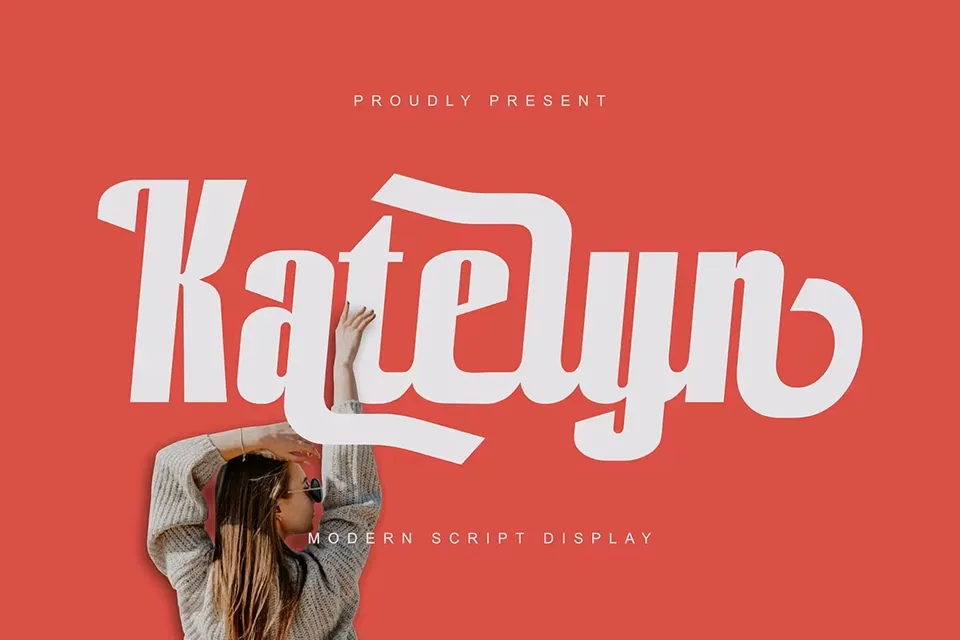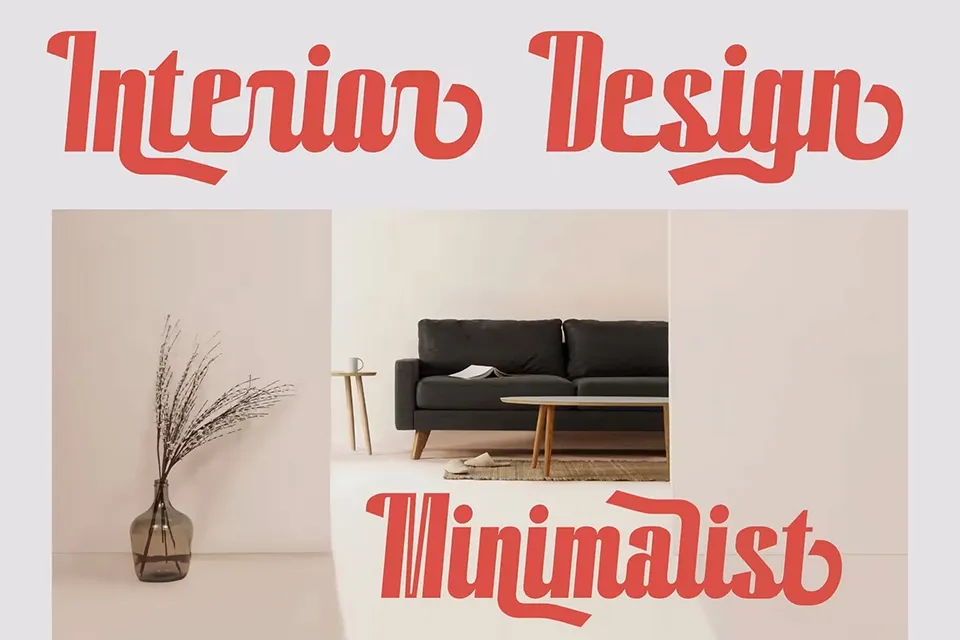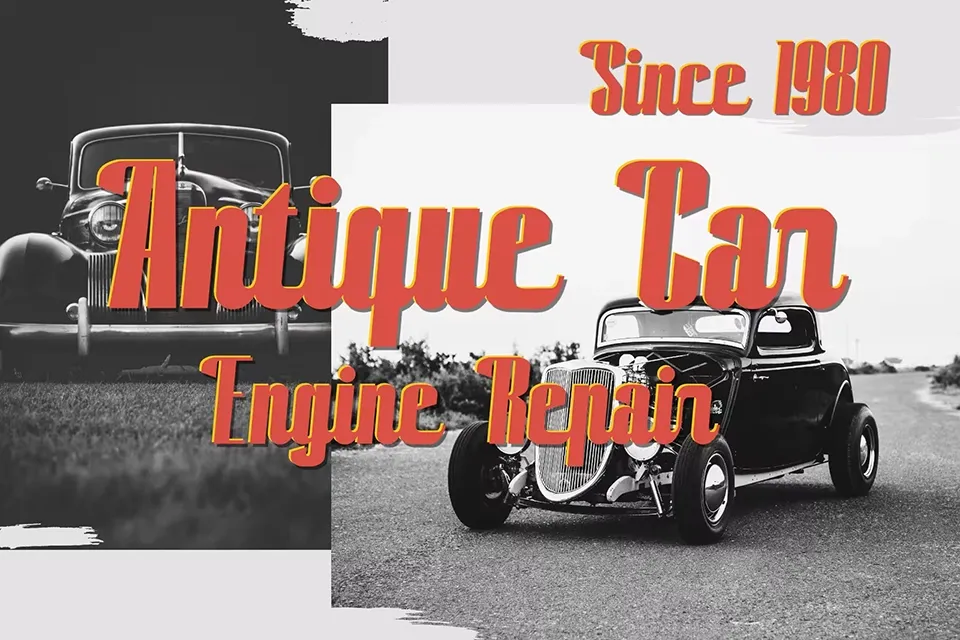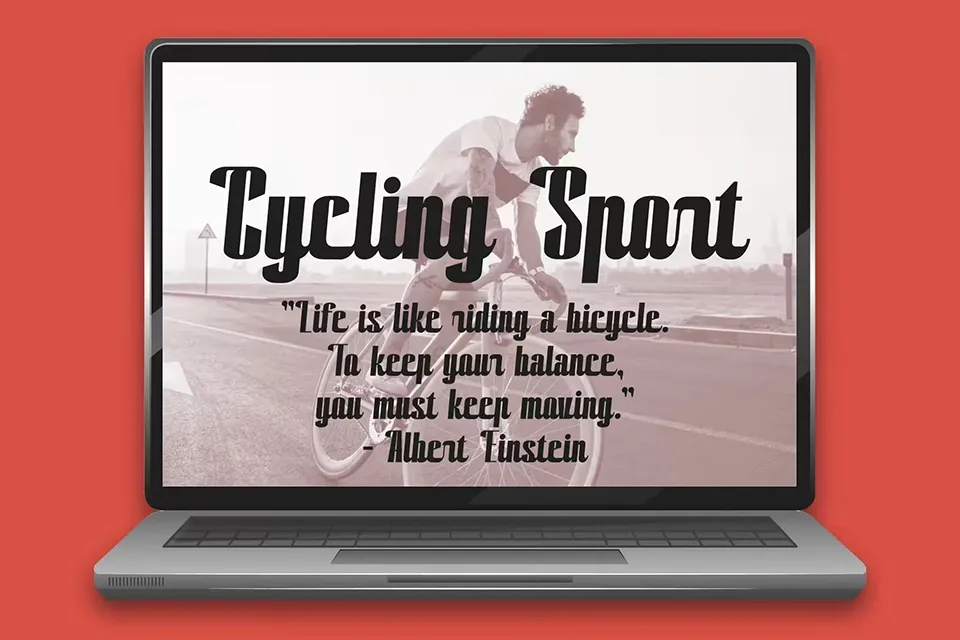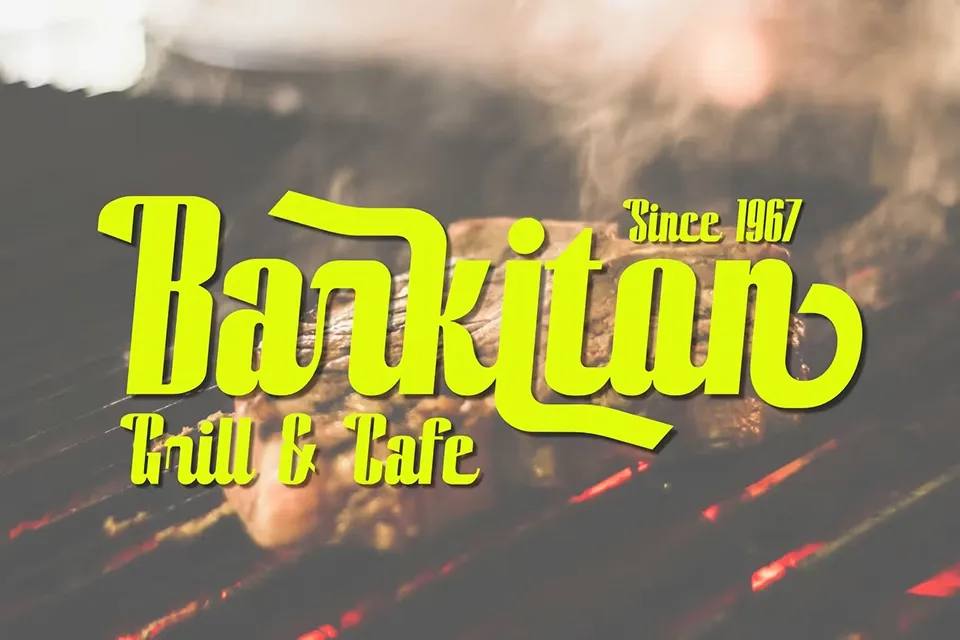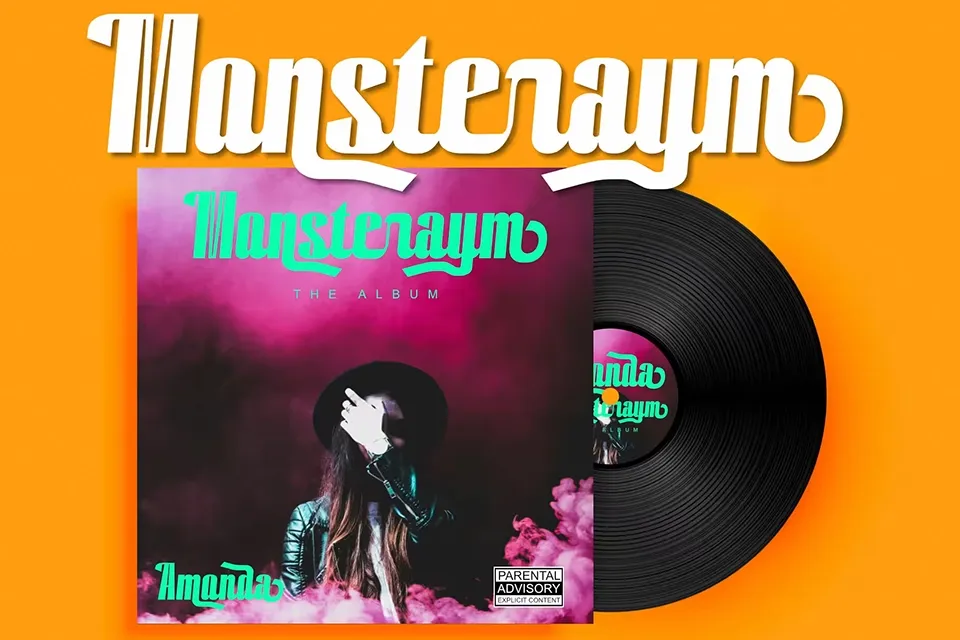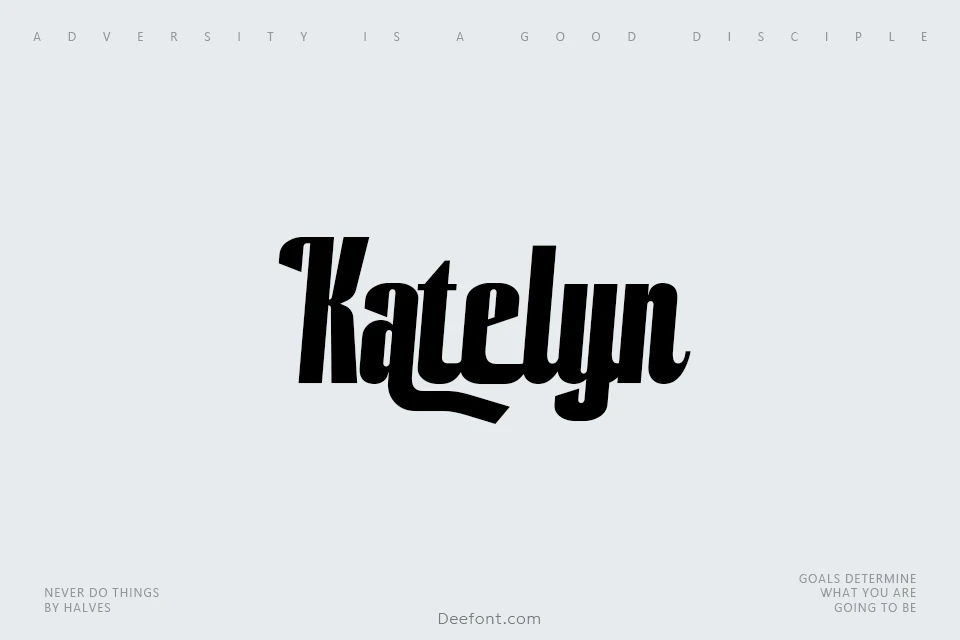
Katelyn Display Font
Katelyn Font is a bold and impactful modern script display font. This typeface stands out with its thick, flowing letterforms that blend script elegance with a strong, contemporary presence. The design features smooth curves and dramatic strokes, making it perfect for creating eye-catching headlines, logos, branding materials, and posters. Katelyn offers a stylish and confident aesthetic, ideal for projects that require a touch of modern flair and personality. Its distinctive look ensures your message grabs attention while maintaining a sophisticated edge, making it a versatile choice for impactful visual communication.